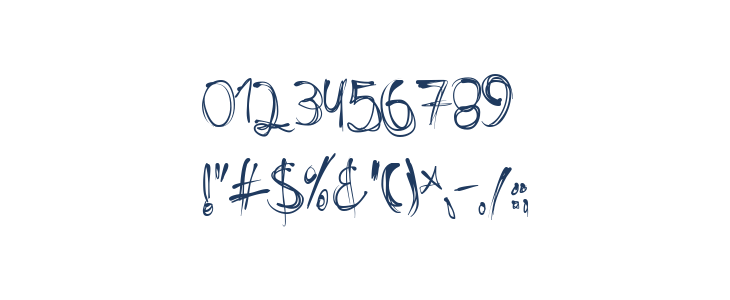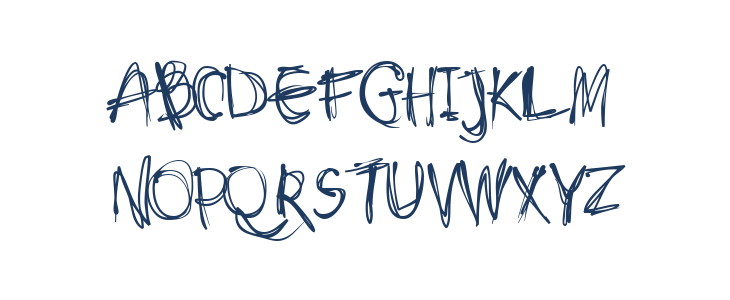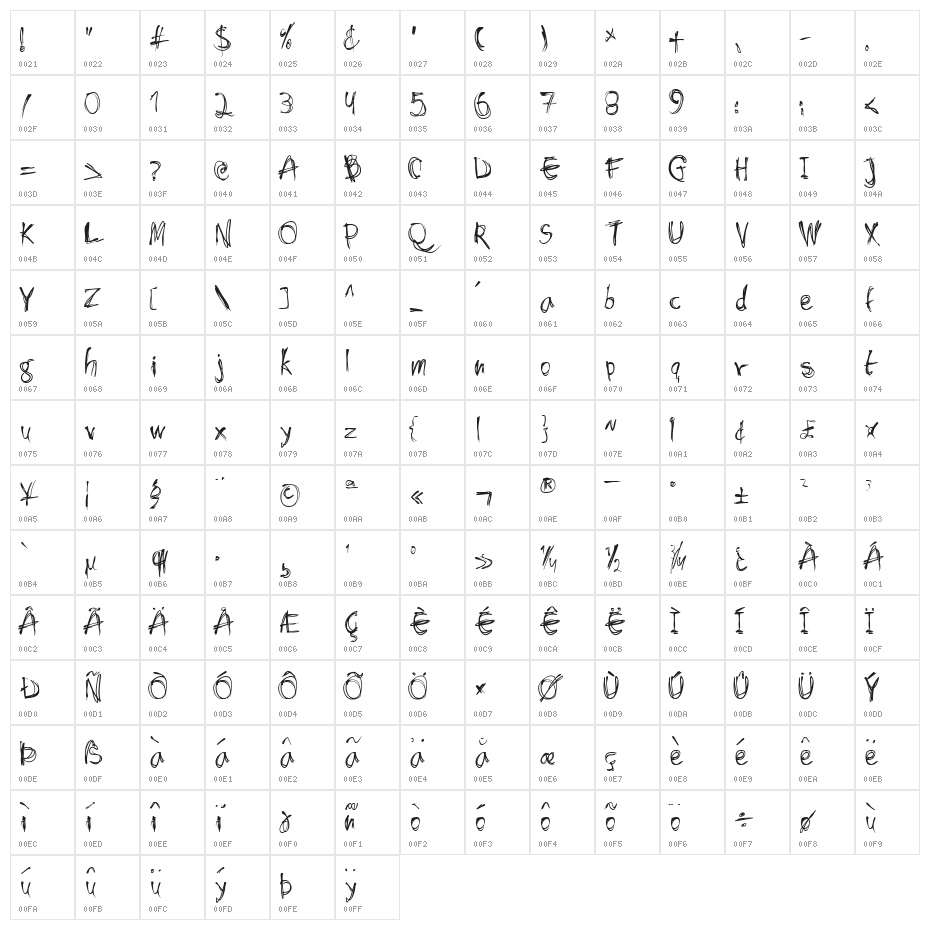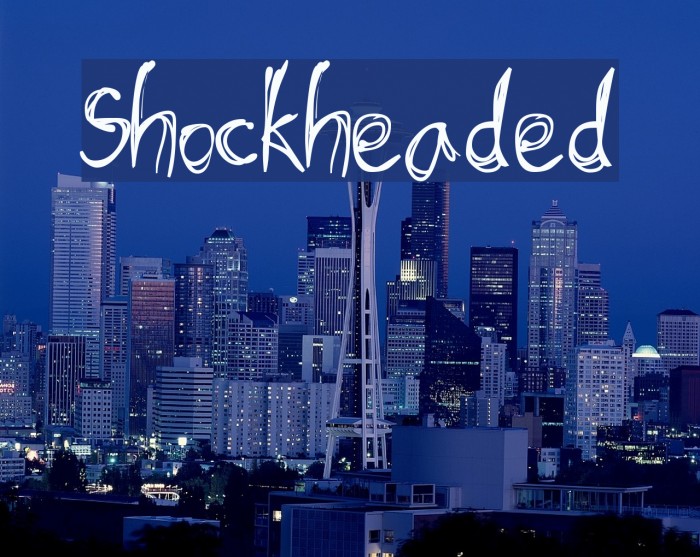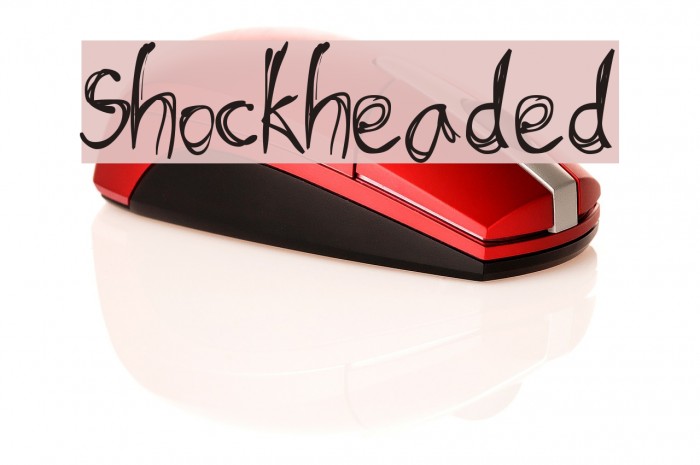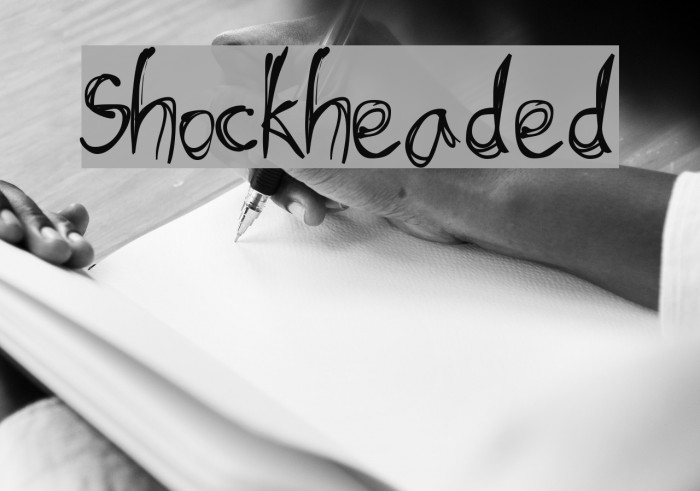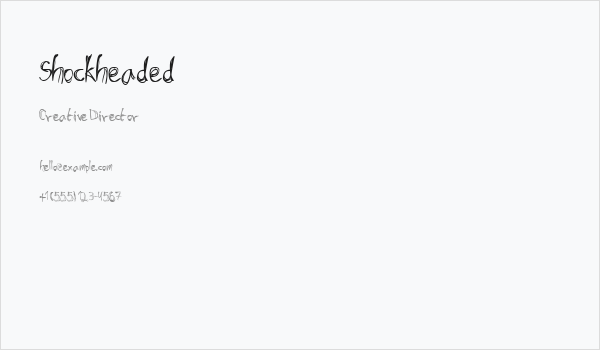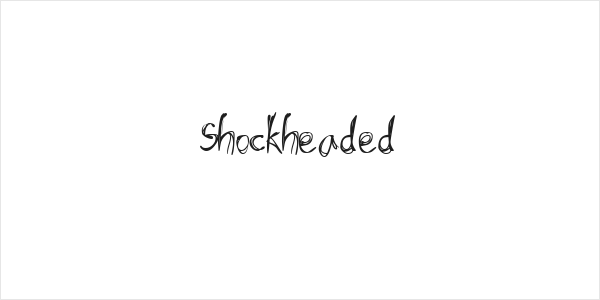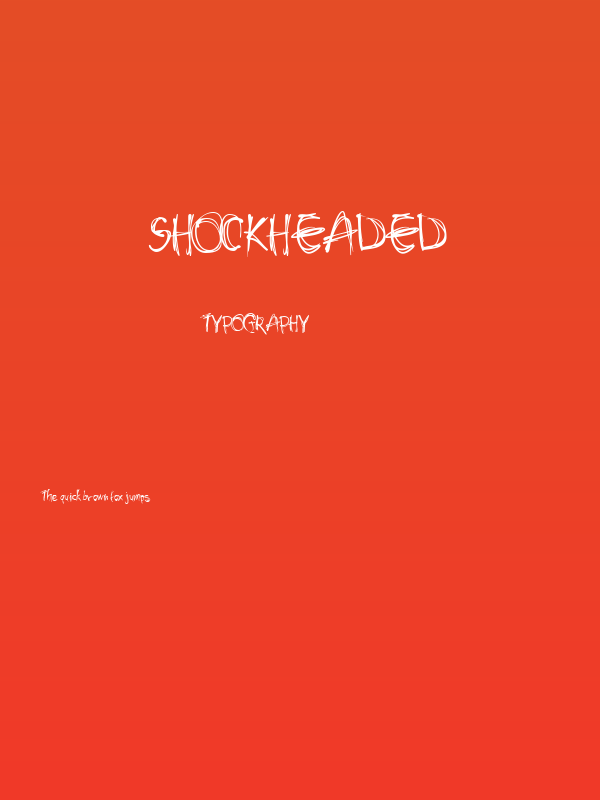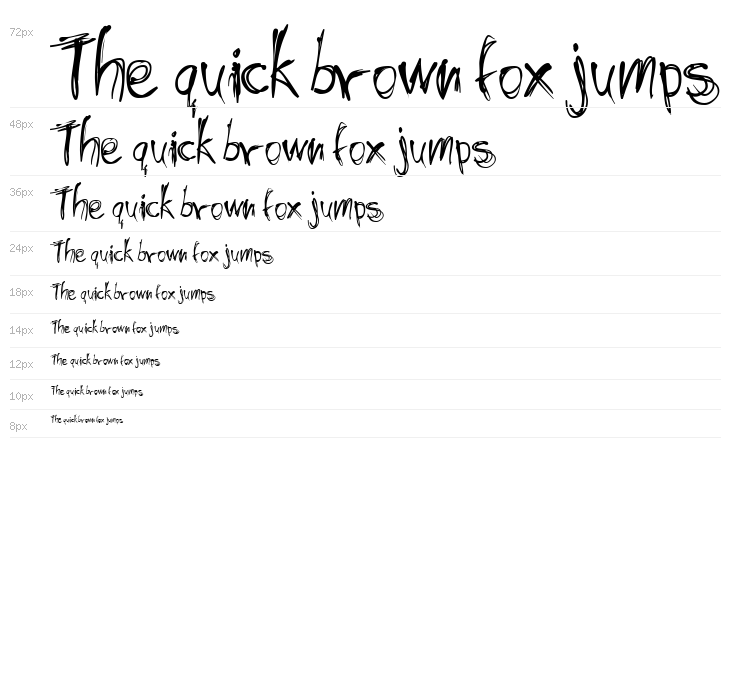
Shockheaded Font
Shockheaded Description
This font exudes a wild and chaotic energy, characterized by its jagged, uneven strokes and a hand-drawn appearance. The letters are irregular and dynamic, giving off a sense of movement and unpredictability. The uppercase and lowercase letters maintain a consistent style, with exaggerated curves and sharp angles that create a sense of urgency and excitement. The numbers and special characters follow this same aesthetic, adding to the overall cohesive yet erratic feel. This font is perfect for projects that require a bold, unconventional look, such as posters, album covers, or any design that aims to capture attention with its raw, untamed style.
| Proposed Projects | Ideal for posters, album covers, and attention-grabbing designs. |